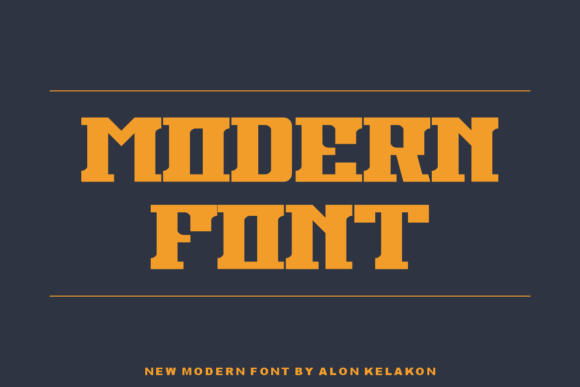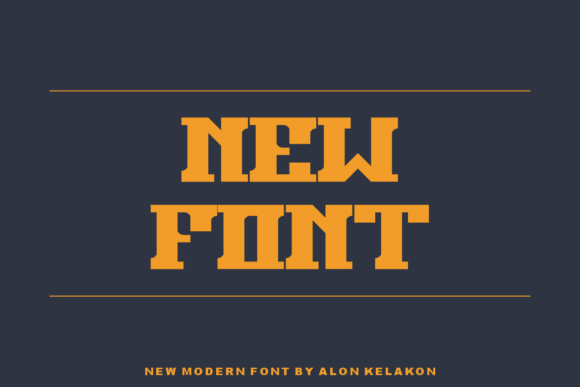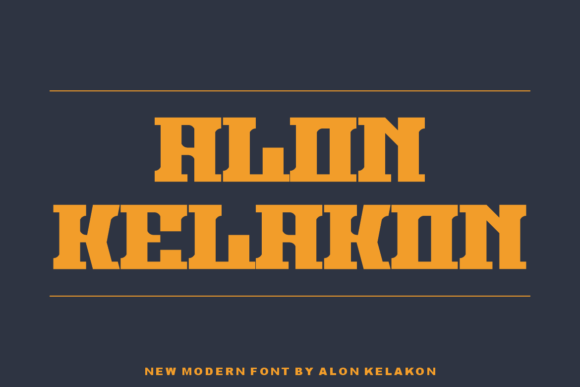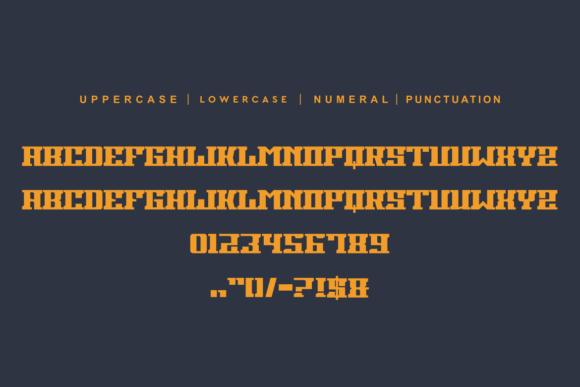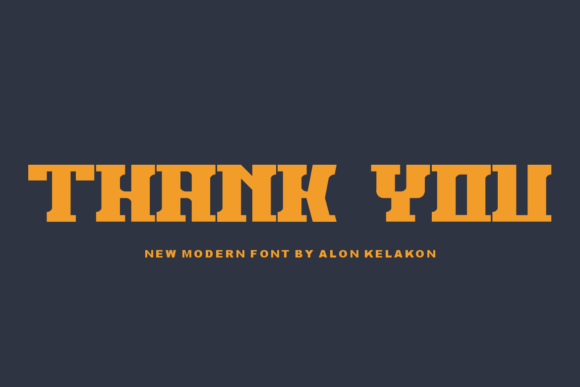
Introducing Guathel Font: Elevate Your Designs with a Unique Display Font
Are you tired of using the same old fonts in your design projects? Look no further than Guathel Font, a distinctive and captivating display font that’s sure to take your creations to the next level. With its unique character and versatility, Guathel is the perfect addition to any designer’s toolkit.
The Story Behind Guathel Font
Guathel Font is a carefully crafted display font designed to make a statement. Its origins may be shrouded in mystery, but its impact on your designs is clear: it’s a game-changer. Whether you’re working on a branding project, a website, or a craft, Guathel’s distinctive style is sure to turn heads.
What Makes Guathel Font So Special?
So, what sets Guathel apart from other fonts? Here are just a few reasons why Guathel Font should be your go-to display font:
- Unique Character: Guathel’s design is unlike anything you’ve seen before. Its quirky, yet elegant style makes it perfect for projects that demand something a little different.
- Versatility: Whether you’re designing a logo, a poster, or a website, Guathel Font adapts seamlessly to any project. Its scalability ensures that it looks great in any size.
- Easy to Read: Despite its unique design, Guathel Font remains highly legible, making it perfect for use in a variety of applications, from headlines to body text.
How to Use Guathel Font in Your Projects
Adding Guathel Font to your projects is a straightforward process that can elevate your designs in no time. Here are some tips on how to get the most out of Guathel:
- Pair it with Other Fonts: Guathel Font pairs well with a variety of other fonts, allowing you to create stunning contrast and visual interest in your designs.
- Experiment with Sizes: Guathel’s scalability makes it perfect for use in a range of sizes, from large headlines to smaller body text.
- Play with Colors: Guathel Font looks great in a variety of colors, so don’t be afraid to experiment and find the perfect hue for your project.
Guathel Font for Crafters and Designers
Guathel Font isn’t just for professional designers; it’s also perfect for crafters and DIY enthusiasts. Whether you’re creating handmade cards, scrapbooking, or working on a craft project, Guathel Font adds a touch of personality and style.
Here are some ways crafters can use Guathel Font:
- Handmade Cards: Add a personal touch to your handmade cards with Guathel Font.
- Scrapbooking: Use Guathel Font to add titles and captions to your scrapbook pages.
- Craft Projects: From knitting patterns to woodworking projects, Guathel Font can add a unique touch to any craft project.
In conclusion, Guathel Font is a unique and interesting display font that’s sure to elevate your designs. With its distinctive character, versatility, and ease of use, Guathel is the perfect addition to any designer’s or crafter’s toolkit. So why wait? Add Guathel Font to your projects confidently and watch as your designs come to life in a whole new way.
Guathel Font is more than just a font – it’s a design statement. Try it today and discover the difference it can make in your work.